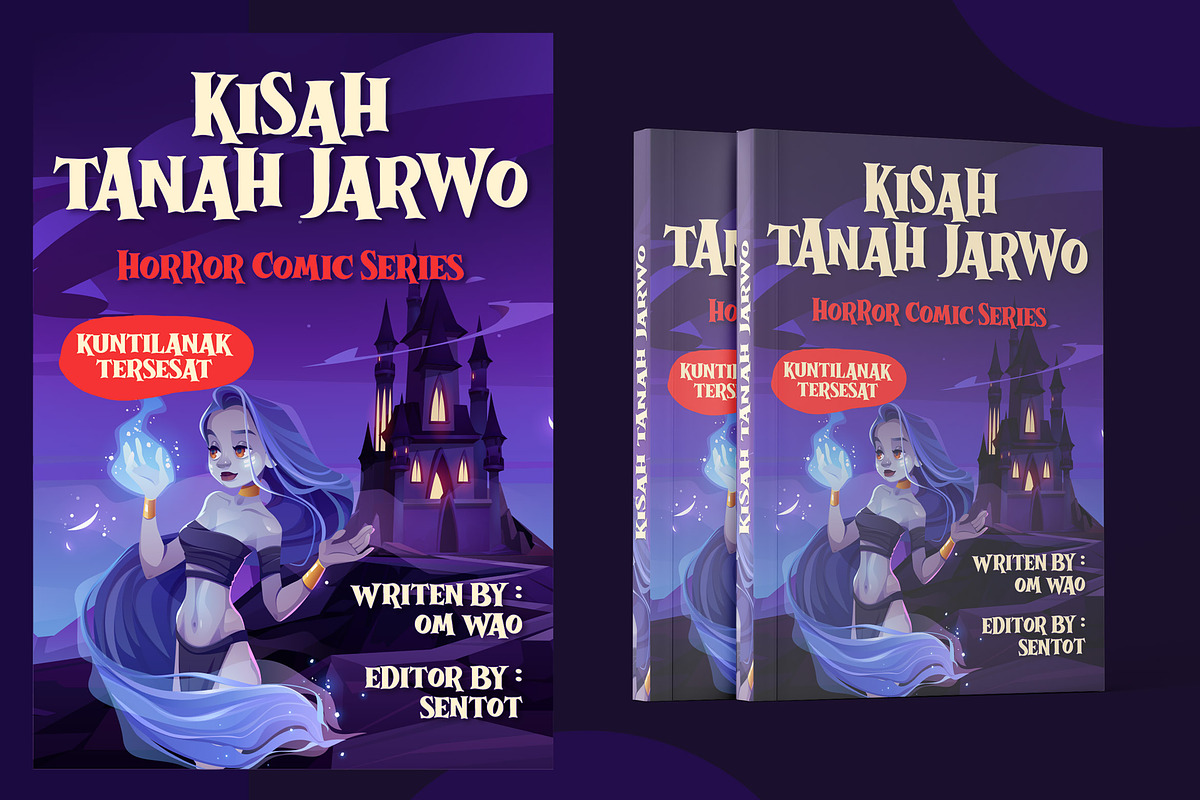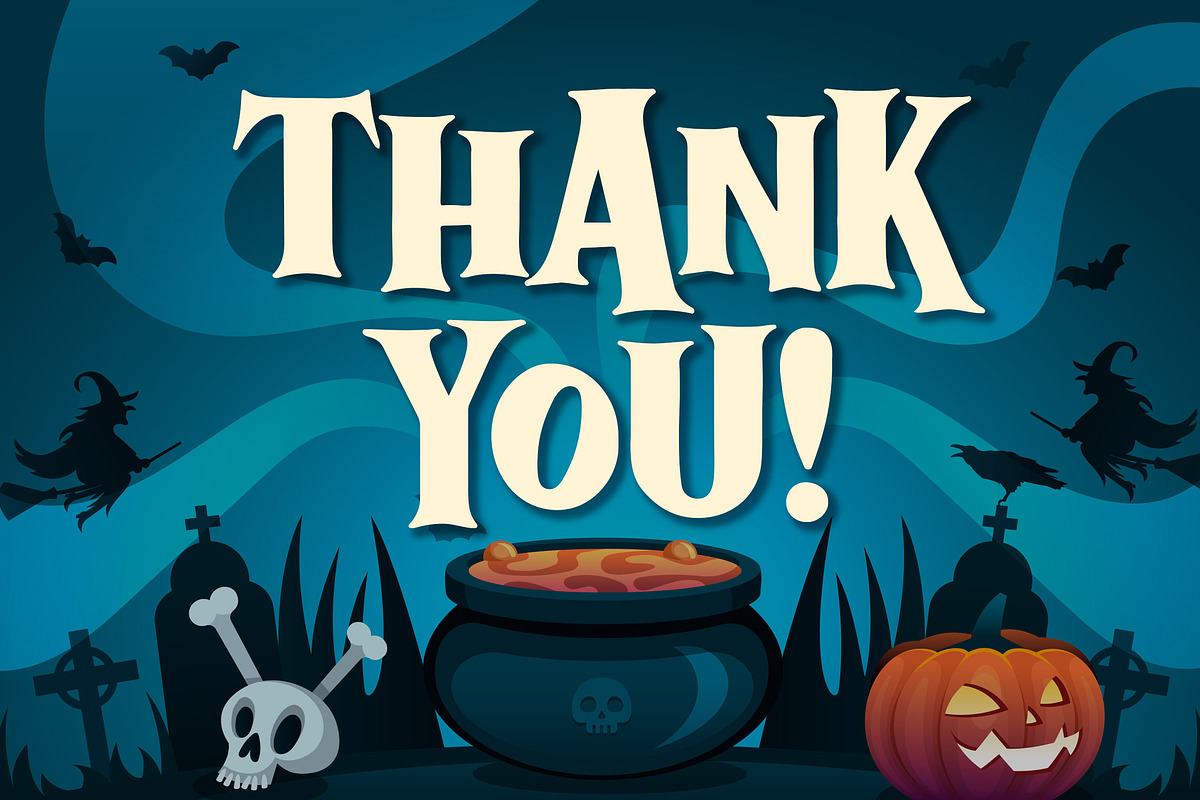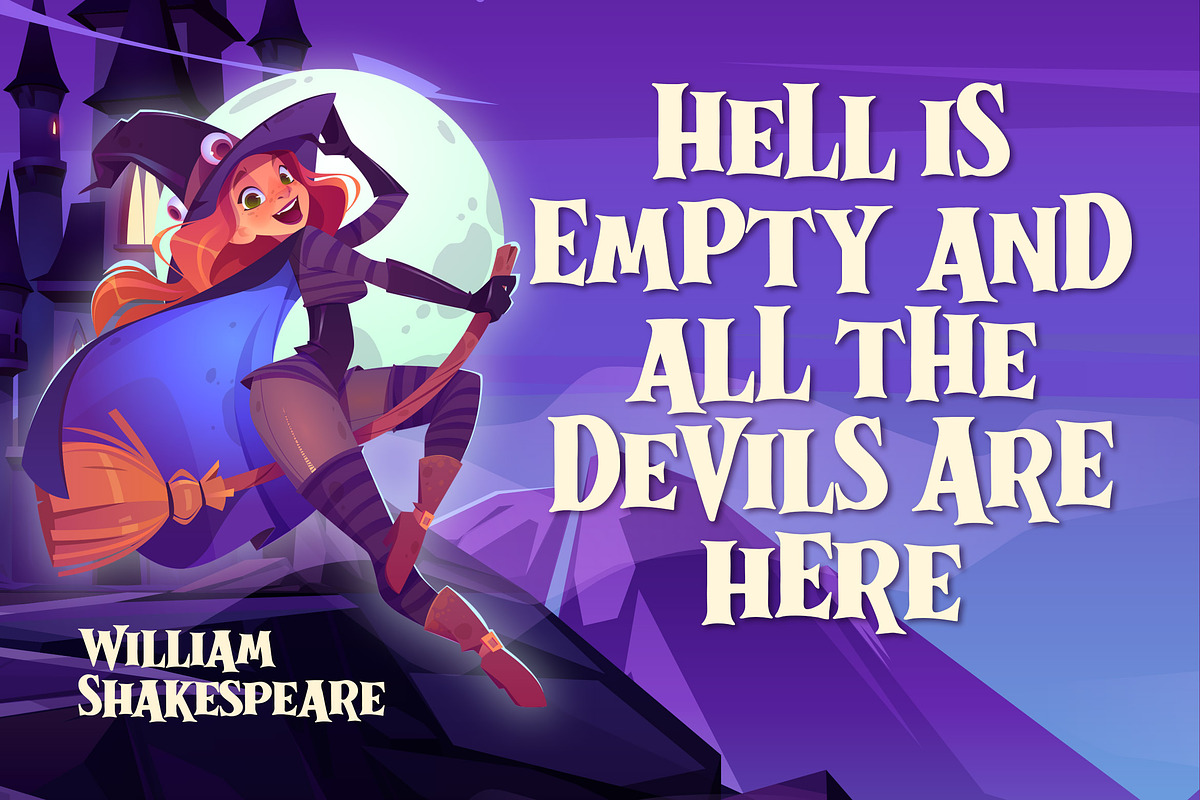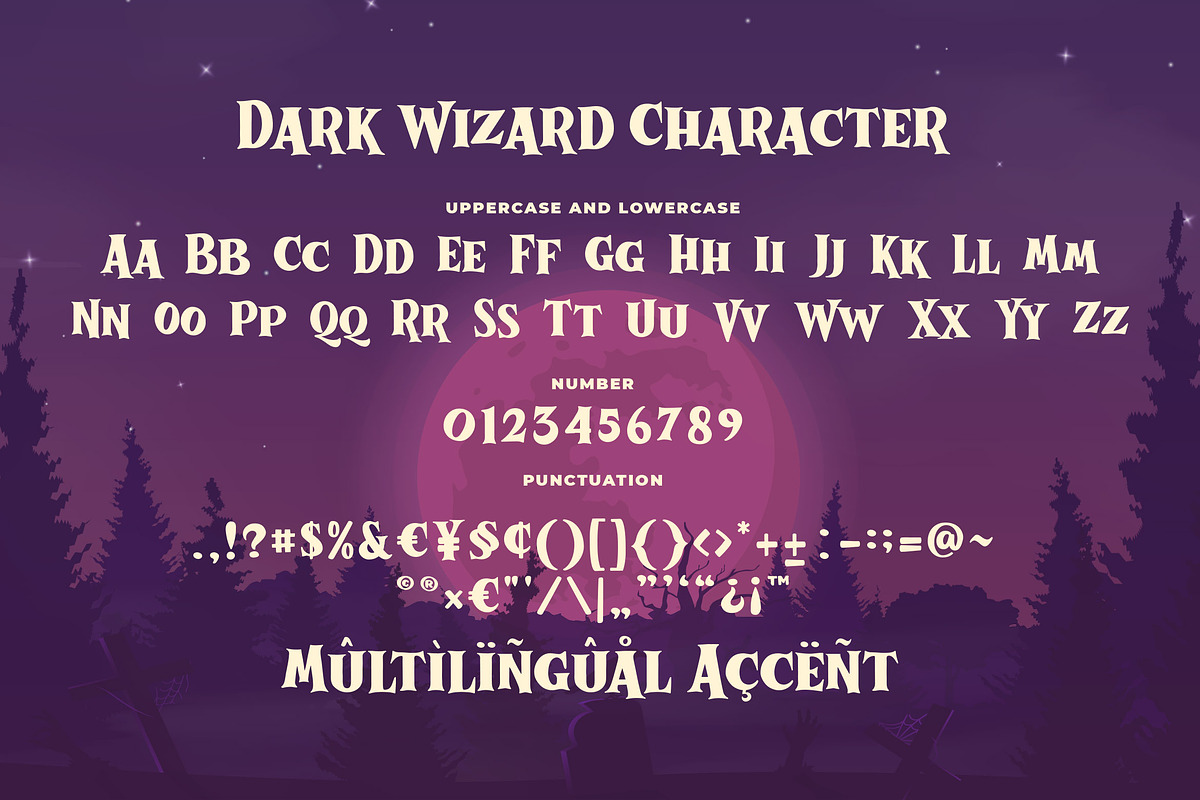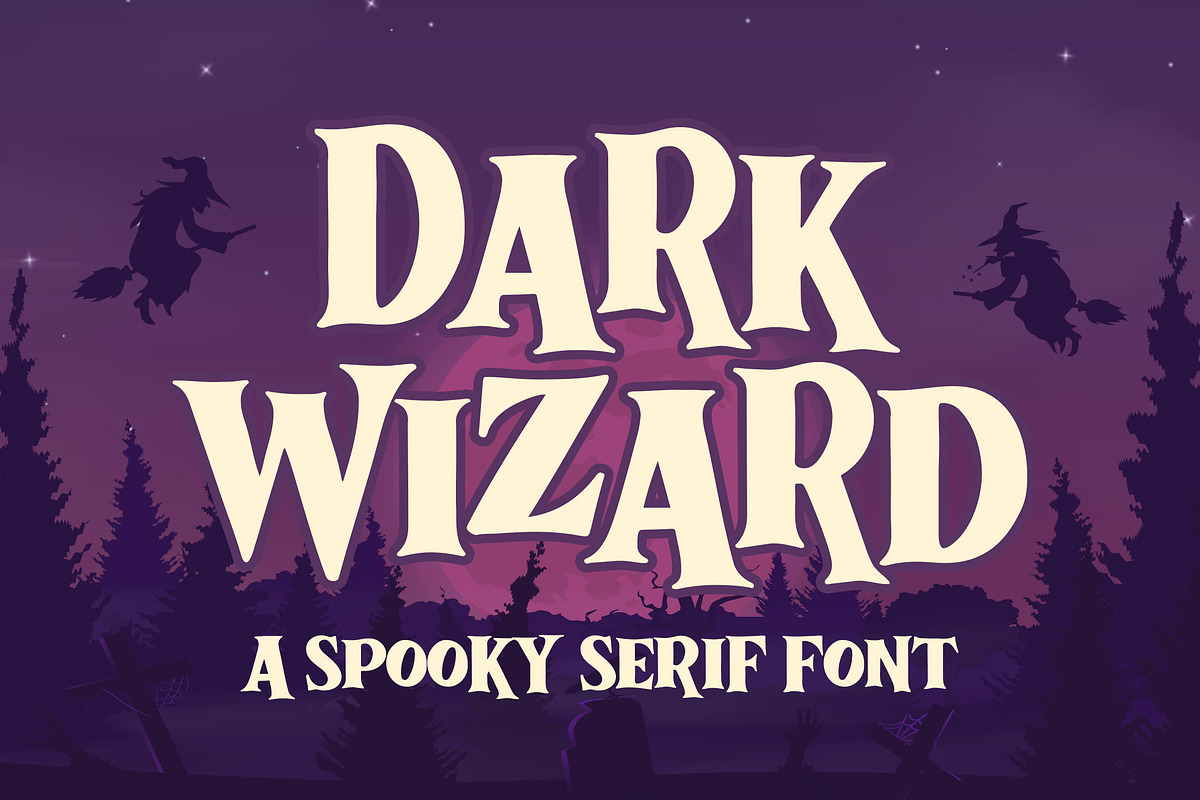
Dark Wizard a Spooky Serif Font
Are you looking for a playful serif, funny and crafty font? Do you want of creating Something that stand out and inspire creativity, imagination, and endless fun? Wait no more, we will give you the best choice.
Dark Wizard a Spooky Serif Font, Inspiring from playful and horror style typography. Dark Wizard font is perfect for a design that makes it more attractive and playful. made with a very good level of aesthetics making this font suitable for hallowen theme, horror, book cover, children book, comic, poster, packging, merchandise, logotype and much more.
Dark Wizard font includes Multilingual Support, among others :
Afrikaans, Albanian, Asu, Basque, Bemba, Bena, Breton, Catalan, Chiga, Cornish, Danish, Dutch, English, Estonian, Faroese, Filipino, Finnish, French, Friulian, Galician, German, Gusii, Indonesian, Irish, Italian, Kabuverdianu, Kalenjin, Kinyarwanda, Luo, Luxembourgish, Luyia, Machame, Makhuwa, Meetto, Makonde, Malagasy, Manx, Morisyen, North Ndebele, Norwegian Bokmål, Norwegian Nynorsk, Nyankole, Oromo, Portuguese, Quechua, Romansh, Rombo, Rundi, Rwa, Samburu, Sango, Sangu, Scottish Gaelic, Sena, Shambala, Shona, Soga, Somali, Spanish, Swahili, Swedish, Swiss German, Taita, Teso, Uzbek (Latin), Volapük, Vunjo, Zulu